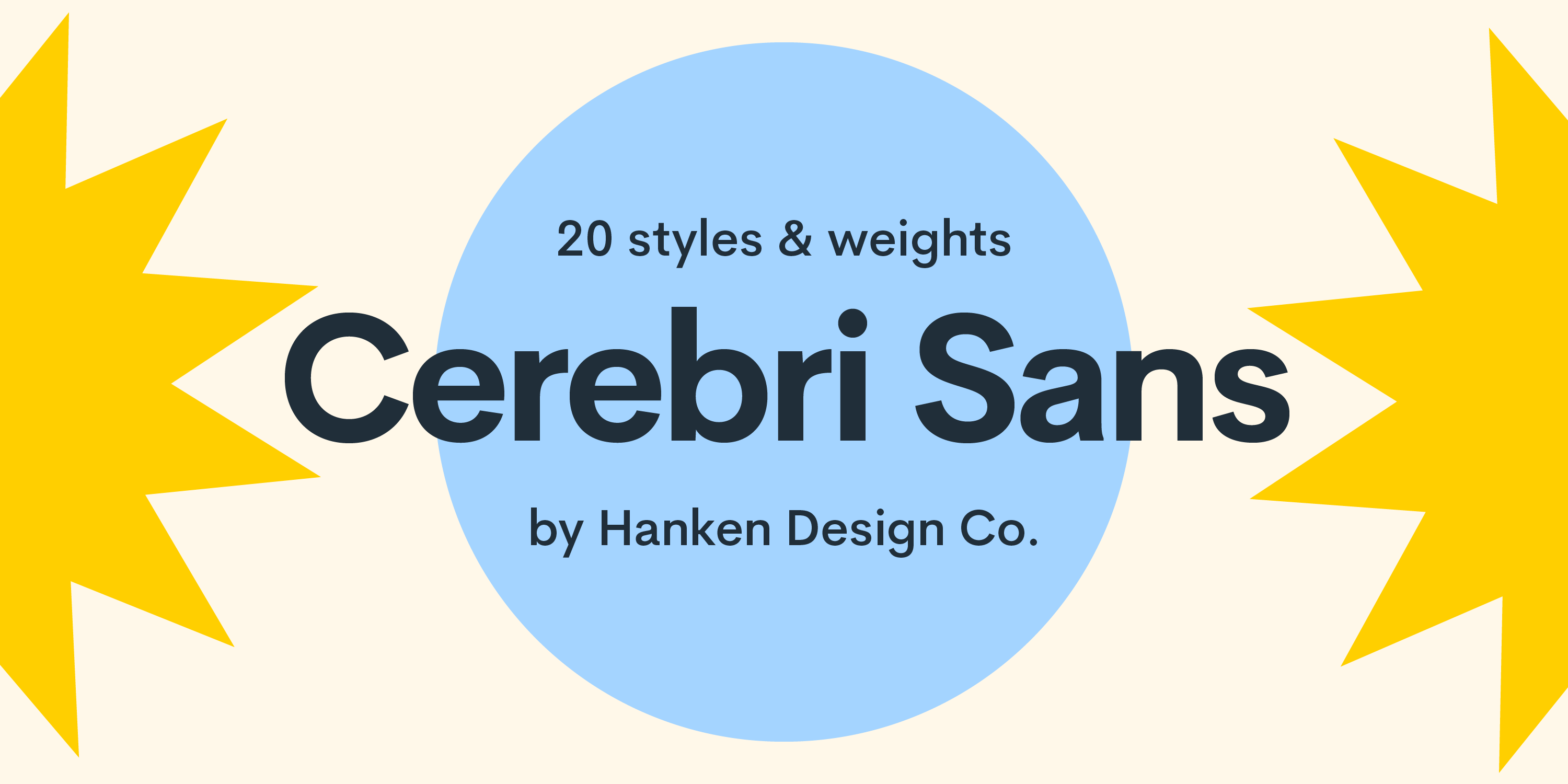
Cerebri Sans Font excels in various design applications including intellectual branding, educational institution materials, research publication designs, think tank logos, academic conference posters, scientific journal layouts, brain health product packaging, and cognitive service communications. This intelligent typeface adapts brilliantly to both analytical digital platforms and scholarly print materials, making it perfect for designers seeking cerebral sophistication and intellectual clarity in their visual communications.
Cerebri Sans Font generates excitement among design professionals due to its intellectual character and brain-inspired styling that instantly conveys intelligence and cognitive excellence. The font's thoughtful letterforms and cerebral proportions create an immediate sense of mental acuity and scholarly sophistication. Its intelligent personality makes it particularly appealing for brands wanting to communicate intellectual prowess, analytical thinking, and cognitive excellence in their visual identity.
The Cerebri Sans Font family encompasses multiple weights and styles including Regular, Bold, Light, Medium, and Thin variations. Each family member maintains intellectual design principles while offering distinct cerebral characteristics. The Light weight provides subtle intellectual elegance for academic applications, while the Bold version delivers powerful impact for analytical headlines and cognitive brand statements.
Intellectual designers frequently choose Cerebri Sans Font Free Download for projects requiring both cerebral authenticity and scholarly distinction. This typeface demonstrates exceptional effectiveness across educational industries including universities, research institutions, consulting firms, and intellectual organizations. Its cerebral character allows institutions to communicate intelligence while maintaining excellent readability and thoughtful visual appeal that reflects analytical thinking and cognitive sophistication.